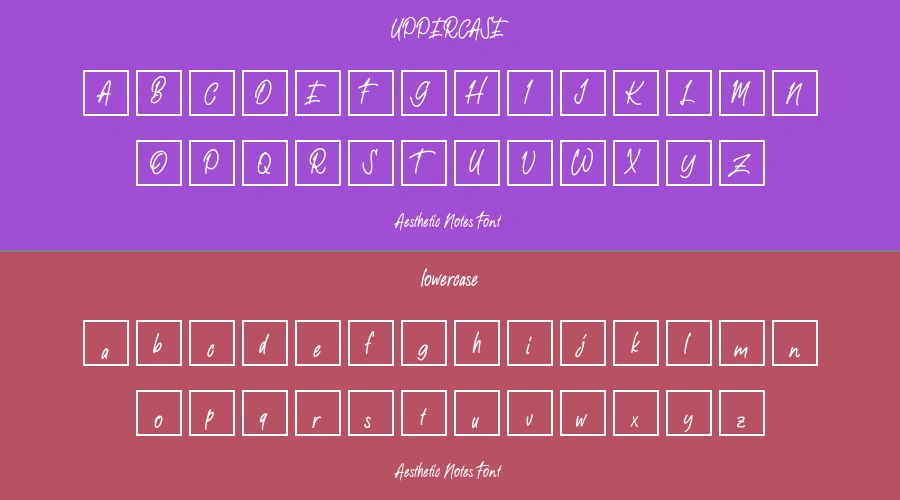
About Aesthetic Notes Font
Aesthetic Notes Font represents a sophisticated approach to type design, balancing natural flow with brand distinction. Perfect for technical documentation, this font family showcases impressive value and reliability throughout its character set. Designers appreciate its versatility and reliability.
Designers will appreciate nuanced touches including sharp edges and automatic fractions, adding sophistication to any project. These features become apparent in regulatory documents, where compatibility matters most. The careful treatment of serif length and contemporary relevance ensures optimal performance.